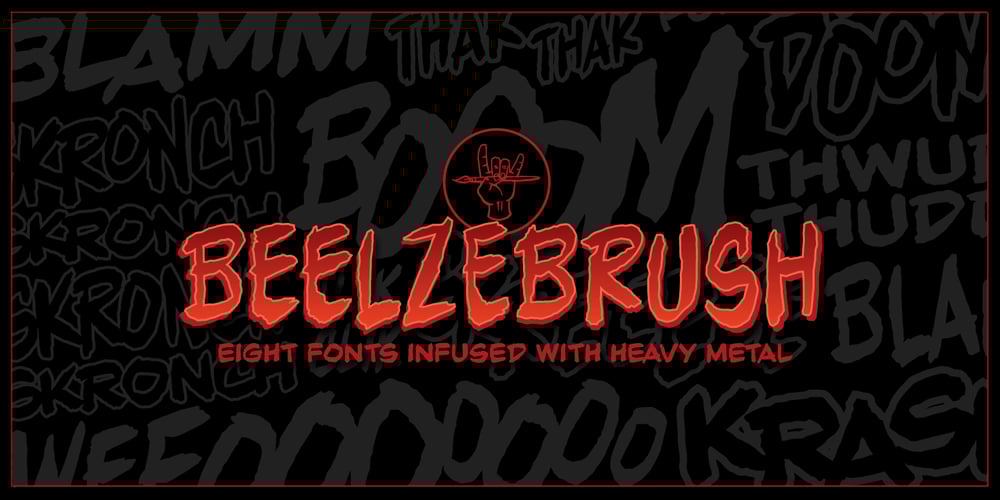
Beelzebrush BB Font Family was designed by Nate Piekos and published by Blambot. Beelzebrush BB contains 16 styles and family package options. Beelzebrush BB is a multifaceted family of eight fonts inspired by heavy metal. Beelzebrush BB Regular, Italic, Alt, and Alt Italic are condensed with rougher edges and shapes, while Black, Black Italic, Black Alt, and Black Alt Italic are heavier with more uniform edges.